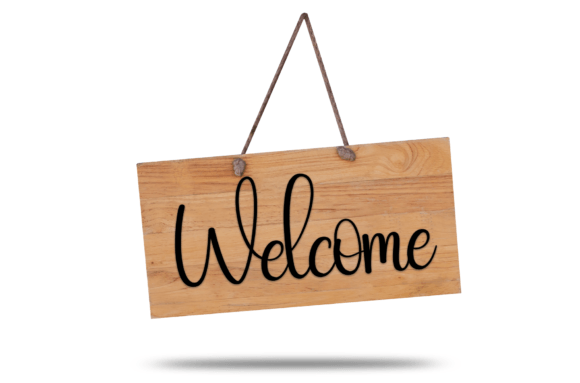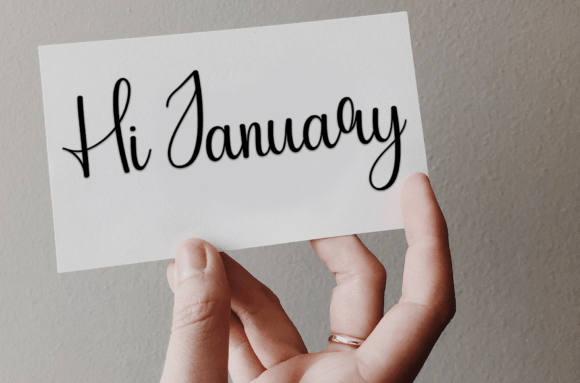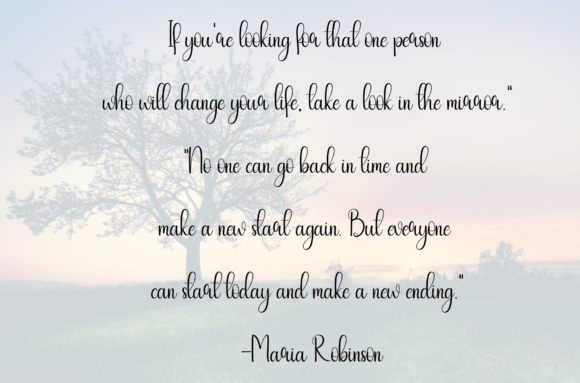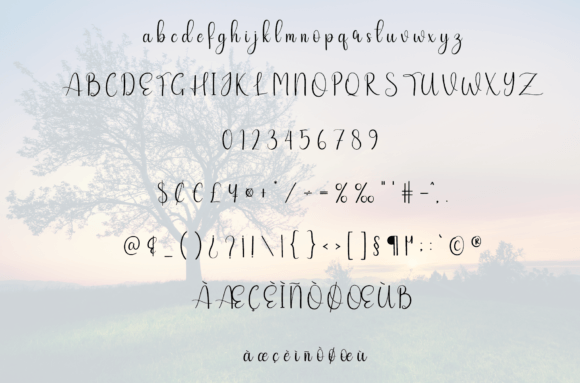
Add Playful Personality with Barbecue Handwritten Font
The Barbecue Handwritten Font is a fun and friendly typeface designed to bring warmth and charm to your creative work. With its relaxed, casual style, Barbecue is perfect for designs that need a personal, approachable touch—whether for events, branding, or DIY projects.
Its hand-drawn character makes it feel lighthearted and expressive, making every design more joyful and memorable.
Perfect for Invitations, Greeting Cards, and DIY Crafts
Barbecue is a great font choice for wedding invitations, thank-you cards, seasonal crafts, party decor, and printables. Its sweet and easy-going nature also fits well with Etsy listings, scrapbooking projects, and personalized gifts.
Looking to brand your small business or create custom merchandise? Barbecue’s clean strokes and handcrafted look make it an excellent match for boutique logos, labels, and product packaging where warmth and approachability matter.
A Handwritten Script Full of Fun and Flow
What makes the Barbecue Handwritten Font stand out is its smooth, rounded strokes and natural flow. The characters are well-spaced and balanced, creating a sense of harmony that’s pleasing to the eye.
Despite its relaxed style, Barbecue remains highly legible, even in smaller sizes. This makes it perfect for both headlines and body text, ensuring versatility in layout design.
Designed for Print and Digital Applications
Barbecue performs beautifully across both print and digital platforms. Whether you’re designing T-shirt graphics, greeting cards, or Instagram story templates, this font delivers clarity and charm in every format.
Pair it with a bold serif or a clean sans-serif for visual contrast and structure—allowing Barbecue’s handwritten style to shine while keeping your design layout professional and polished.
Why Designers Love Barbecue Handwritten Font
Here’s why Barbecue is a valuable addition to any creative toolkit:
Fun, friendly handwritten script with a relaxed style
Ideal for wedding cards, crafts, invitations, and packaging
Highly legible and beautifully balanced
Works across digital and print design projects
Make Every Design Feel Special with Barbecue
In conclusion, the Barbecue Handwritten Font is a delightful script that brings fun, friendliness, and versatility to your creative work. Whether you’re designing for a personal occasion or professional branding, Barbecue helps you create something warm, joyful, and engaging.
If you’re looking for a handwritten font that combines sweet charm with functional style, Barbecue is the perfect choice to bring your ideas to life.